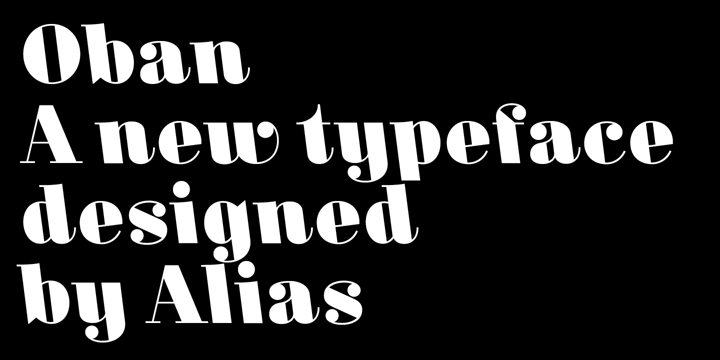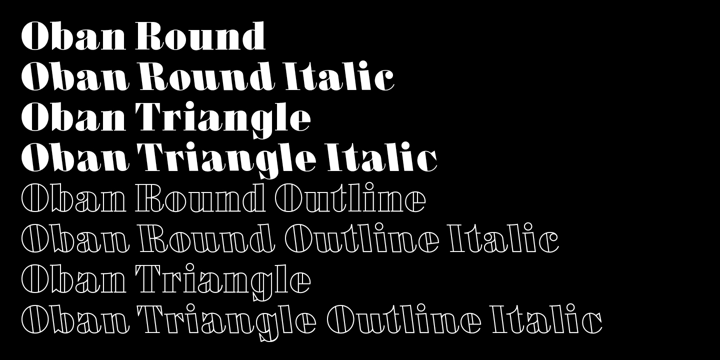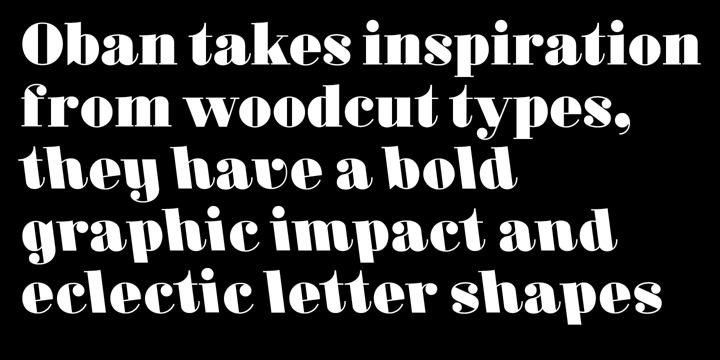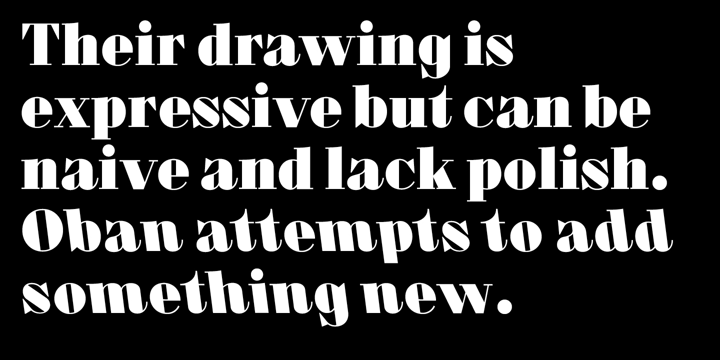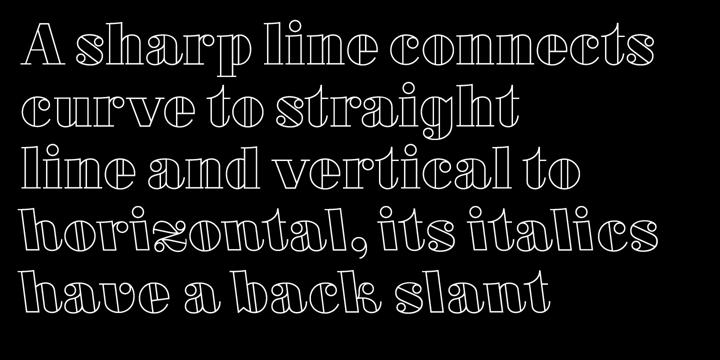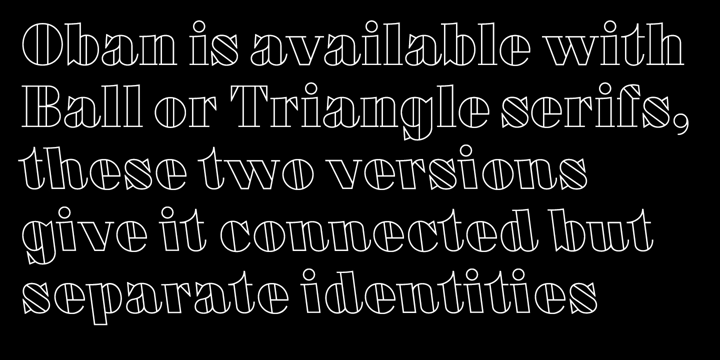
Oban
Font Family by Alias
Originally drawn as a rebranding proposal for a fashion house, Oban takes inspiration from Thorowgood types and from sample books of wood cut fonts from the late nineteenth century, with their spirited and expressive, heavyweight graphic, sometimes naively drawn forms. Oban has a modular geometry and its character shape has an extra sharpness, with the slight curve connecting vertical to horizontal and curve to straight line of the originals reduced to a sharp angle. It has two versions, with ball terminals or triangular serifs, each with a backwards italics and outline. The backwards italic suggests the kind of self-consciously quirky idea a nineteenth century type founder might have had.